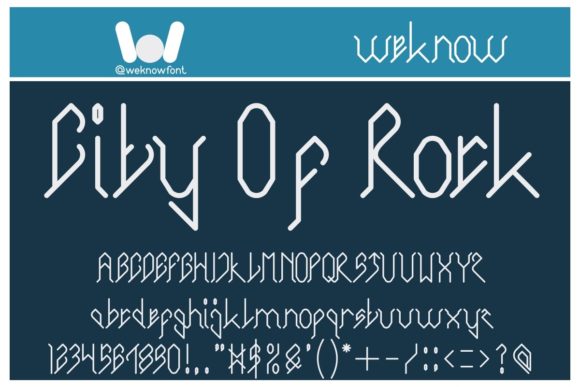
Unleash the Renegade Spirit with City of Rock Font – A Typographical Adventure Like No Other
In a world of ordinary fonts, City of Rock emerges as a defiant rebel, a renegade that shatters the boundaries of blandness. Bold, untamed, and utterly captivating, this display font is not just a collection of letters; it's an experience that ignites your creative fire and propels your designs to new heights.
With its striking lines and audacious curves, City of Rock commands attention like a magnet. Its carefully crafted glyphs possess an undeniable allure, inviting you to embark on a typographical journey that is both exhilarating and unforgettable. Whether you're crafting logos that exude power or headlines that demand respect, City of Rock is your weapon of choice.
Born from the creative minds of the renowned foundry, weknow, City of Rock carries the pedigree of excellence. Its versatility knows no bounds, effortlessly adapting to a multitude of design endeavors. From corporate identities that radiate confidence to apparel designs that ooze streetwise swagger, City of Rock is the chameleon of fonts, seamlessly blending into any creative landscape.
But City of Rock is more than just a versatile tool; it's an expression of individuality, a defiant roar against the mundane. It's the font that dares you to push the boundaries, to explore uncharted creative territories. Its very essence is a testament to the transformative power of typography, its ability to elevate ordinary designs into masterpieces of visual storytelling.
So, if you yearn for a font that ignites your passion, a font that fuels your creative engine, then City of Rock is your destiny. Embrace the renegade spirit, unleash your inner rebel, and let City of Rock guide you on an extraordinary typographical adventure that will leave your audience breathless.